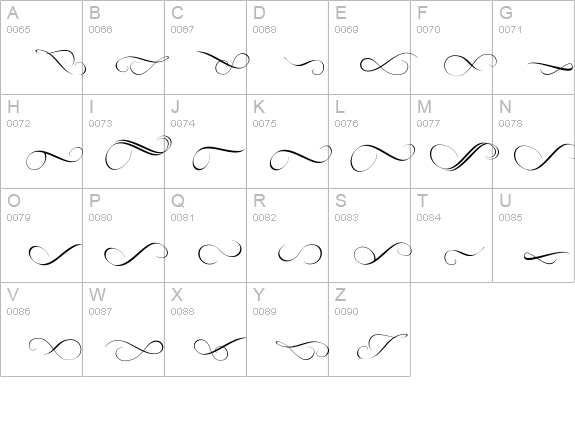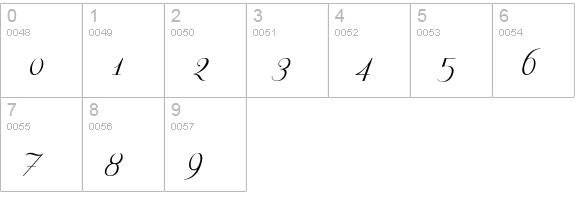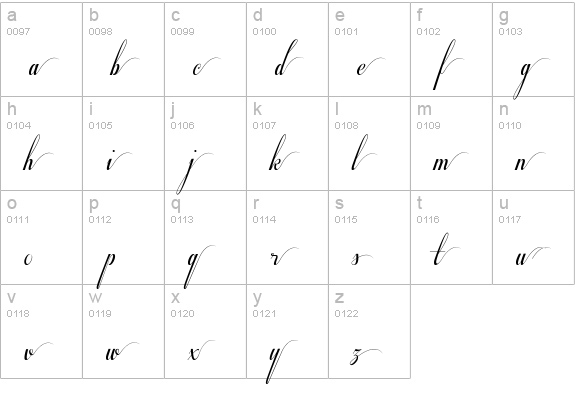
Respective Swashes Font Details
Respective Swashes is an elegant and sophisticated font that will add a touch of class to any design project. With its beautifully crafted swashes and flourishes, this font exudes a sense of refined elegance and style. Each letter is meticulously designed to create a harmonious flow, making it perfect for wedding invitations, branding materials, and high-end editorial designs. But what makes Respective Swashes even more enticing is that it is available for free download at FontsMarket.com. Yes, you read that right! This stunning font can be yours without spending a dime. Now, you can elevate your designs without breaking the bank. Whether you're a professional designer or a hobbyist, Respective Swashes is a versatile font that will inspire and captivate your audience. Its smooth curves and intricate details make it a truly remarkable choice for any creative project. From logos to headlines, this font will make a lasting impression. Don't miss out on the opportunity to add Respective Swashes to your font collection. Head over to FontsMarket.com now and download this incredible font for free. It's time to take your designs to the next level with this exquisite typeface.